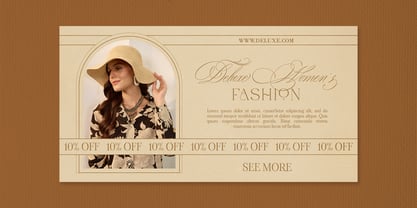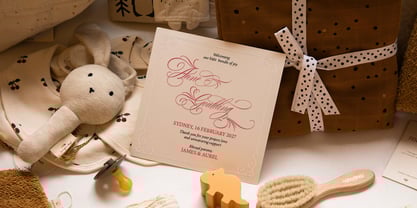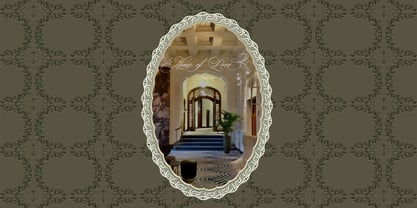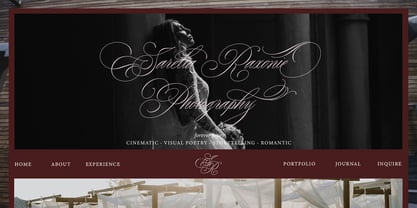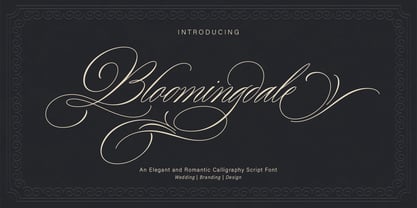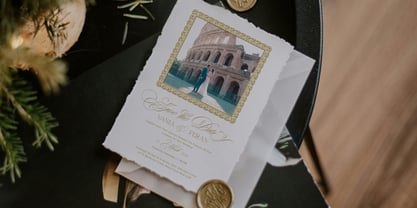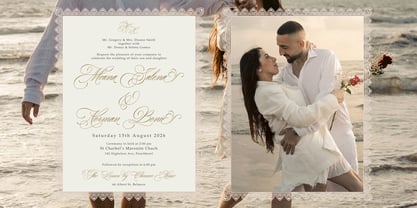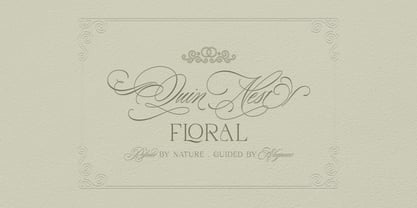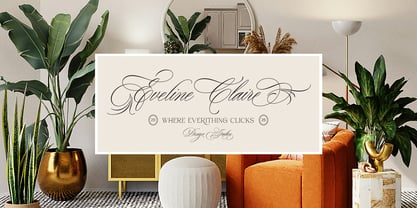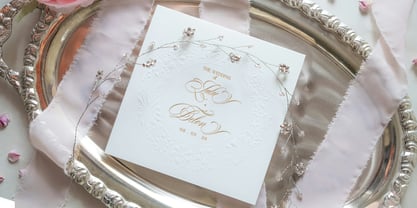
Bloomingdale
by Jamalodin
The Bloomingdale Font Family was designed by Jamaluddin and published by Jamalodin. Bloomingdale contains 1 styles. More about this family
Bloomingdale is a beautiful Handwritten script font that is suitable for branding, wedding invitations, greeting cards, posters, name card, quotes, blog header, logo, fashion, apparel, letter, stationery and other projects. Come with 600+ glyphs. Uppercase (two style) & Lowercase, International Language, Symbols Support Punctuation & Numeral, Alternates Stylistic Set 1-18 Character Variant Contextual. And this Font has given PUA Unicode. so that all the alternate characters can easily be accessed in full by a craftsman or designer.